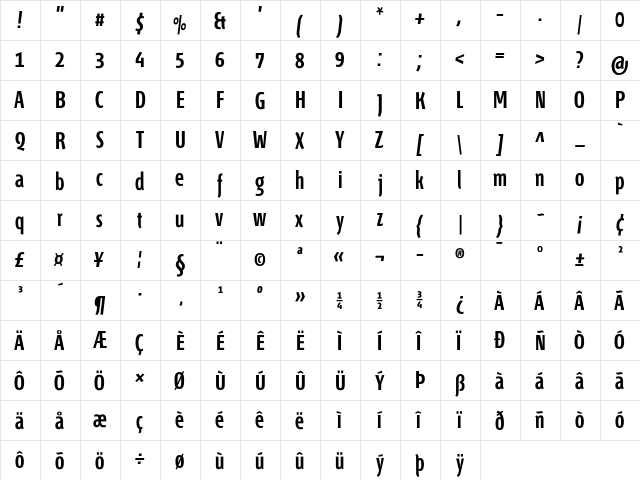
Fontana ND Gg Semibold
Design Context for Fontana ND Gg Typeface
Fontana ND Gg takes a measured approach to typography — its balanced proportions and neutral character make it a reliable workhorse for both digital and print work. Its bold stroke weight gives it real presence on the page.